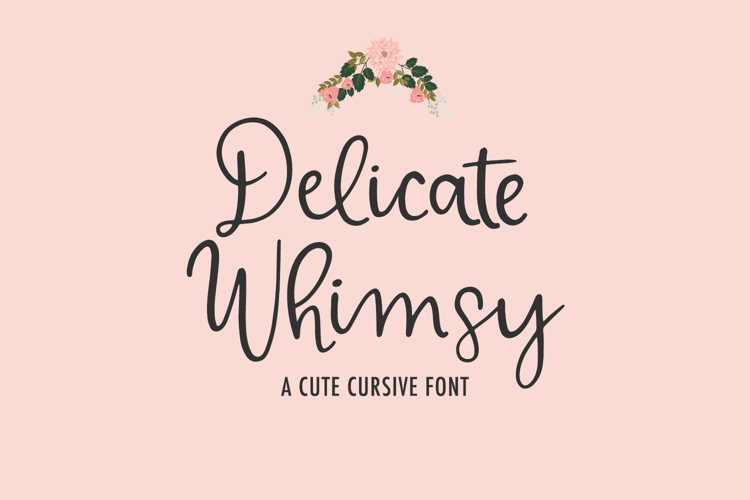
Introducing Delicate Whimsy, a playful and whimsical handwritten cursive font. Delicate Whimsy is perfect for wedding invitations, greeting cards, social media posts, marketing materials, logos & branding, or quote graphics.
Delicate Whimsy includes:
- upper + lowercase characters A-Z and a-z
- numbers 0-9
- punctuation
- 10 alternates - b, d, e, f, h, k, l, m, n, t
- 37 ligatures - al, an, ar, au, bb, br, ch, cr, dd, dr, el, em, er, et, fr, im, ir, jr, ll, lr, mm, mr, nn, nr, ol (x2), om, or, ot, ox, ph, sr, ss (x2), tr, ts, ur